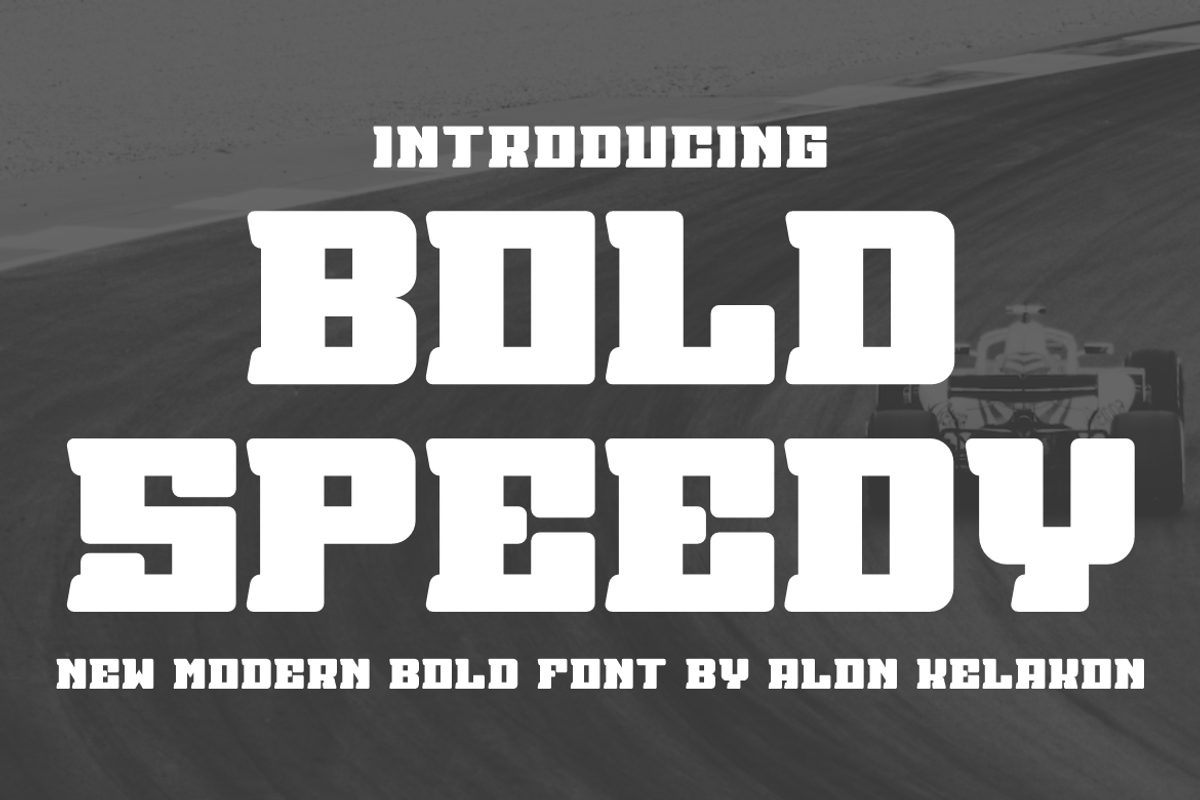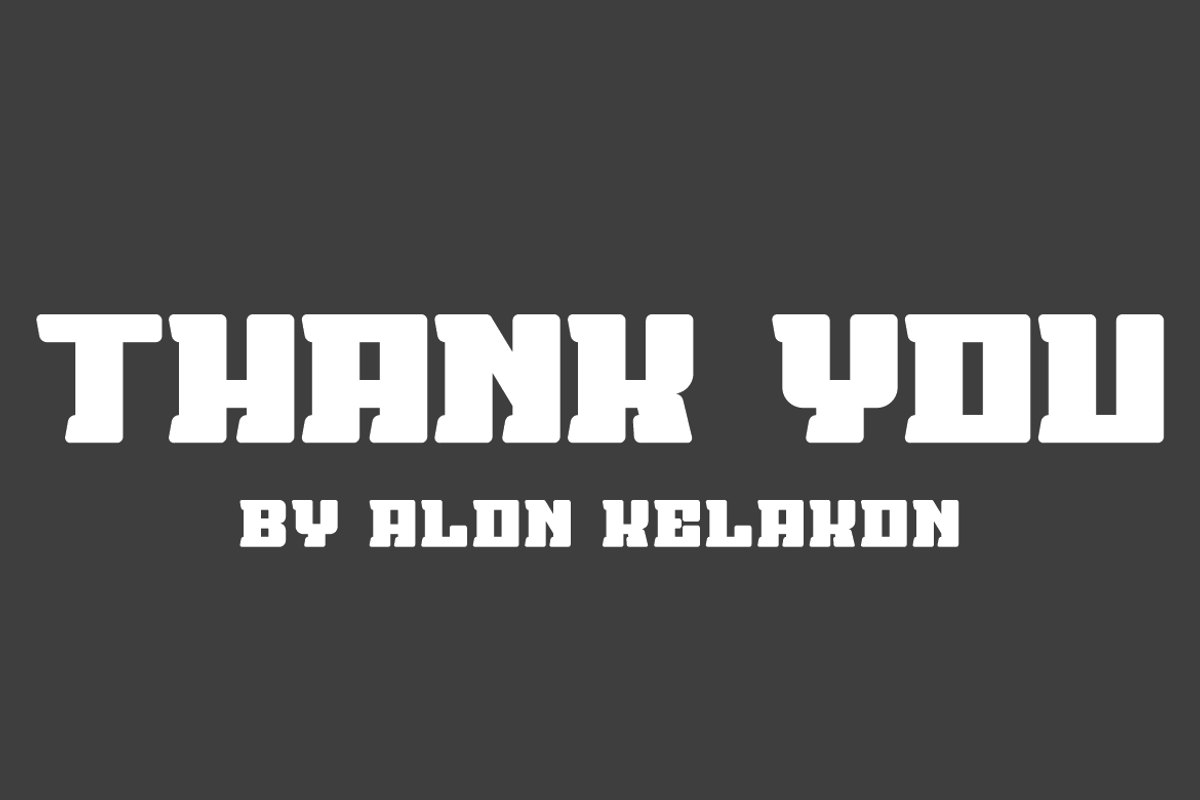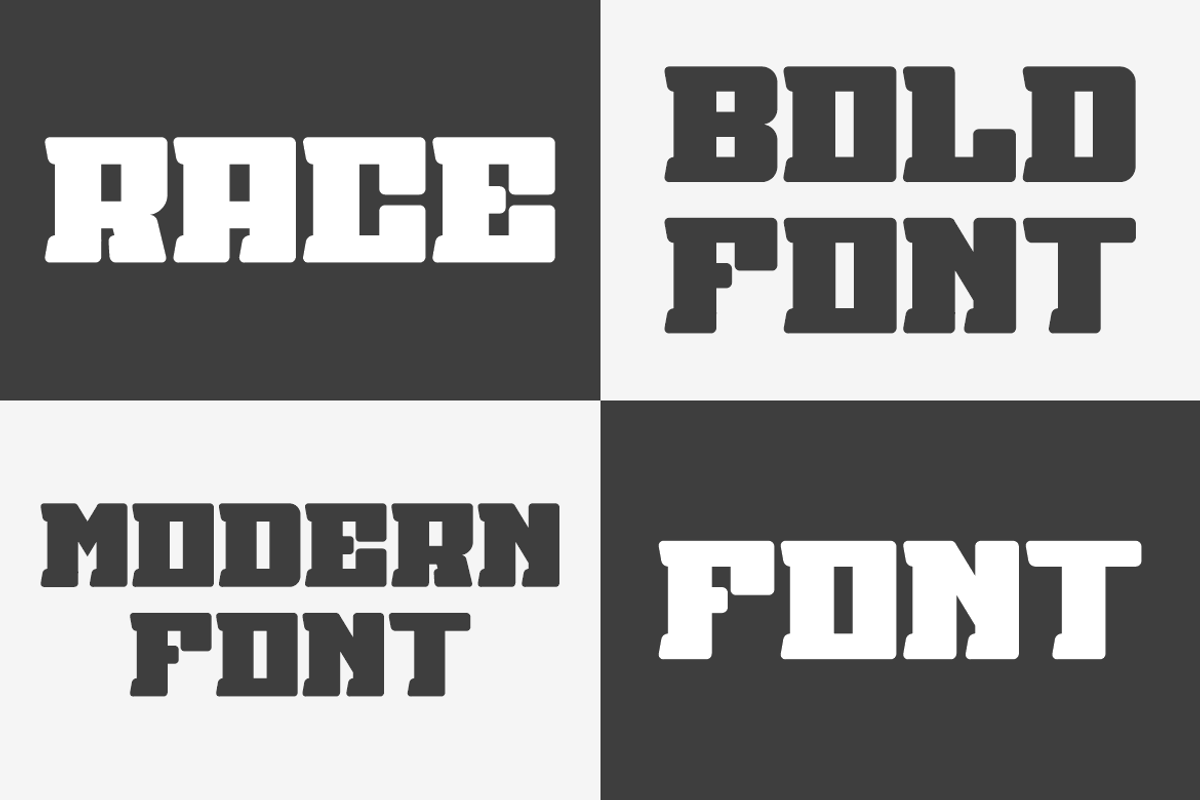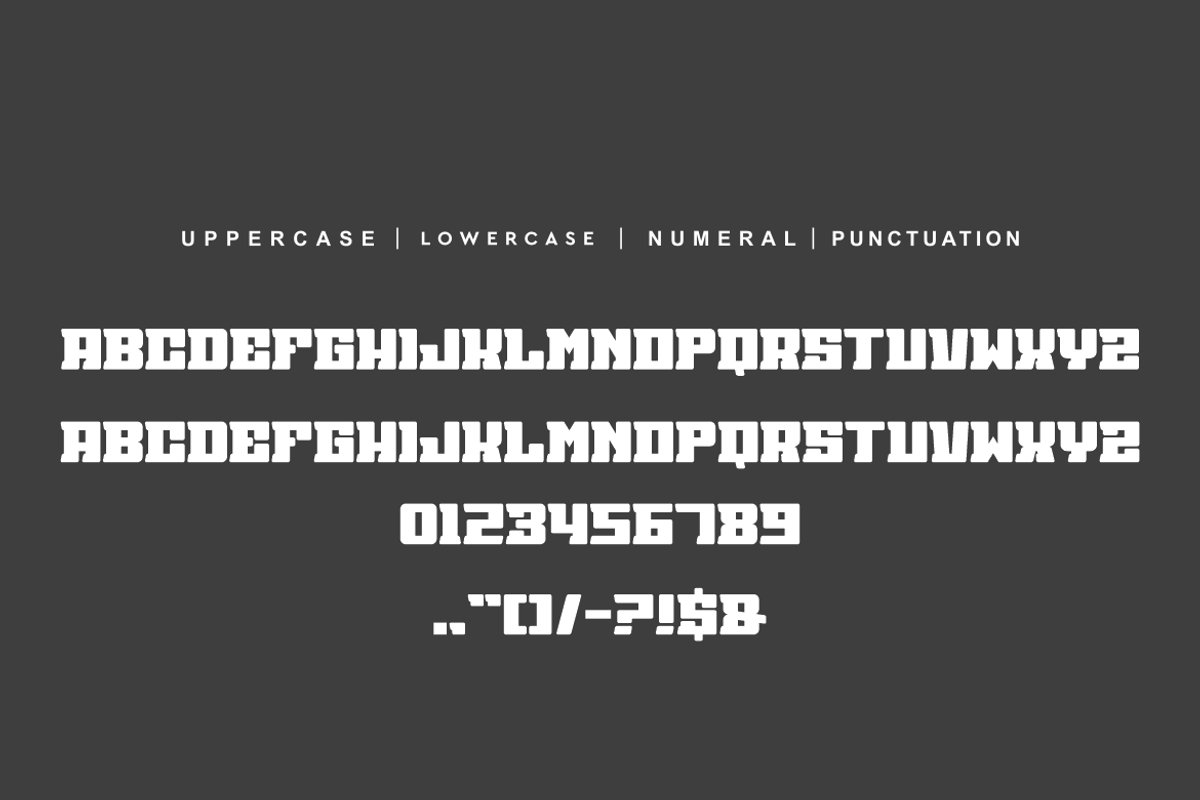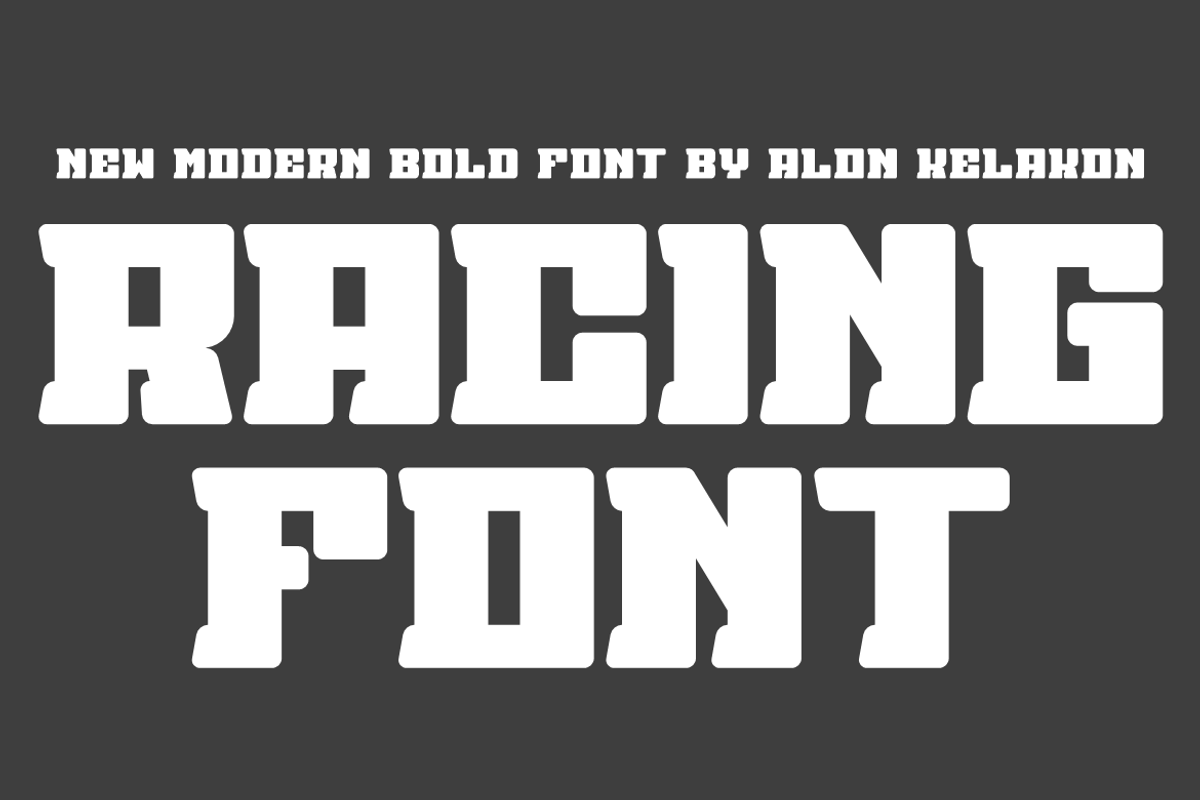
Bold Speedy
Bold Speedy Font is unique . Ready to use for your design like labeling, clothing, movie sceen, poster, movie title, gigs, album covers, logos, and much more.